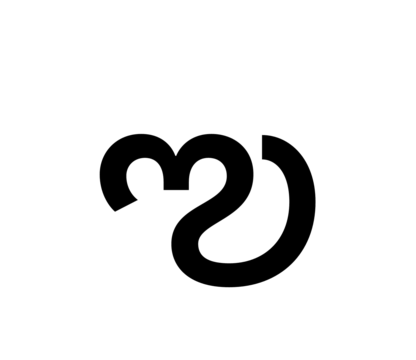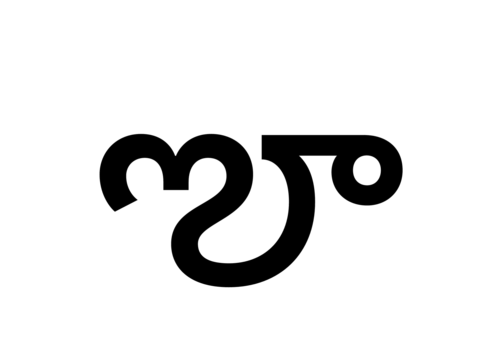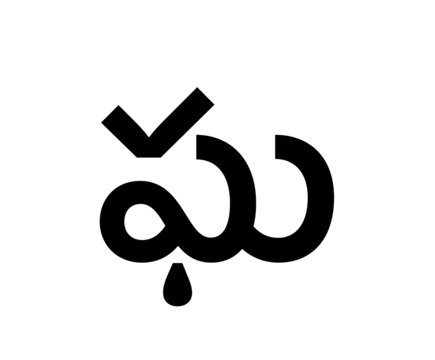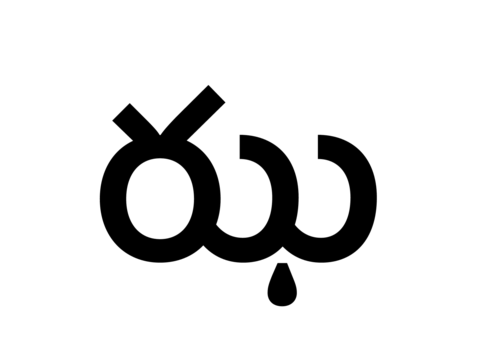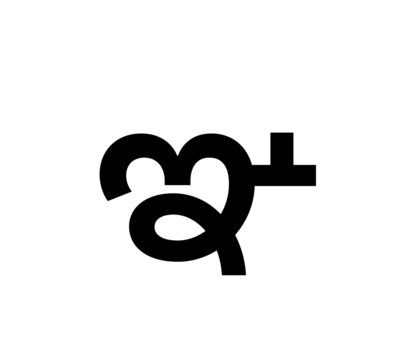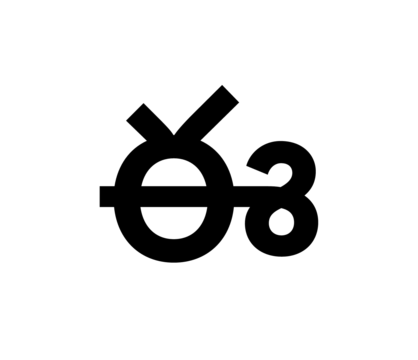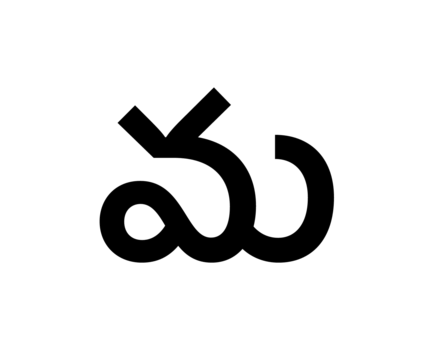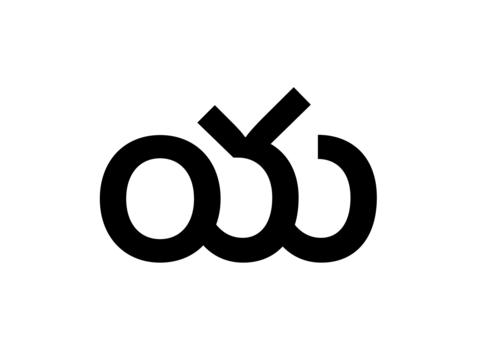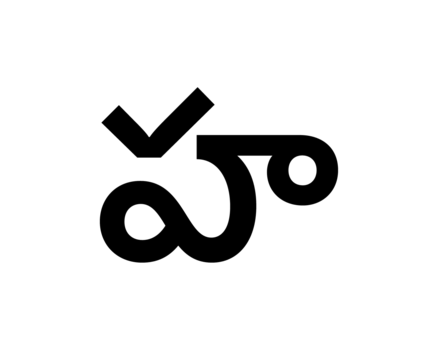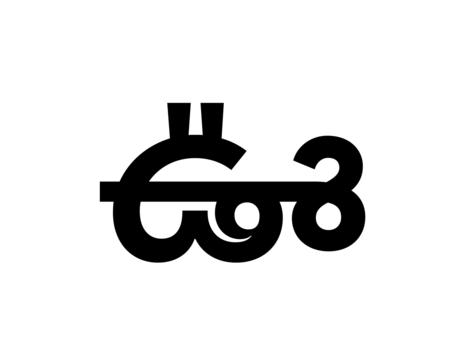
Kohinoor Telugu is a workhorse typeface for software engineers and branding specialists. Its letterforms feature open counter-forms, and strokes with low contrast. Thanks to its clear appearance, the fonts are easy to work with, and their results are inviting to read. Kohinoor Telugu is an ideal choice for use in text-heavy multilingual projects, including app design, corporate design, editorial design, signage systems, and television subtitling. Kohinoor Telugu is part of our larger Kohinoor family, containing fonts for the Arabic, Devanagari, Gujarati, Gurmukhi, Bangla, Latin and Tamil scripts. Taken together, they support hundreds of languages that are spoken natively by billions of people around the world. Before ITF released Kohinoor Telugu as a retail product, its fonts were embedded inside of several popular products from Apple, Sony, and other manufacturers.
| Family Name | Kohinoor Telugu |
| Designer(s) | Satya Rajpurohit |
| Classification | Sans |